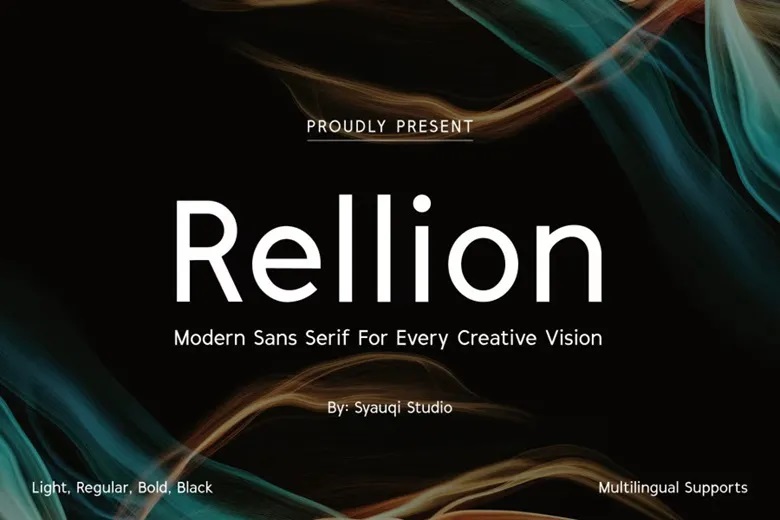
Rellion Font
Rellion is an accurately designed modern sans serif typeface containing neat and clean look and representing elegant minimalism. Made for designers, innovators, and brands who appreciate clean and sophisticated look,
Rellion is extremely flexible and incorporates modern minimalism into any design. Rellion is a versatile sans-serif typeface that can be used for logos, websites, print graphics and, all kinds of branding stuff.
Rellion Sans Serif Font